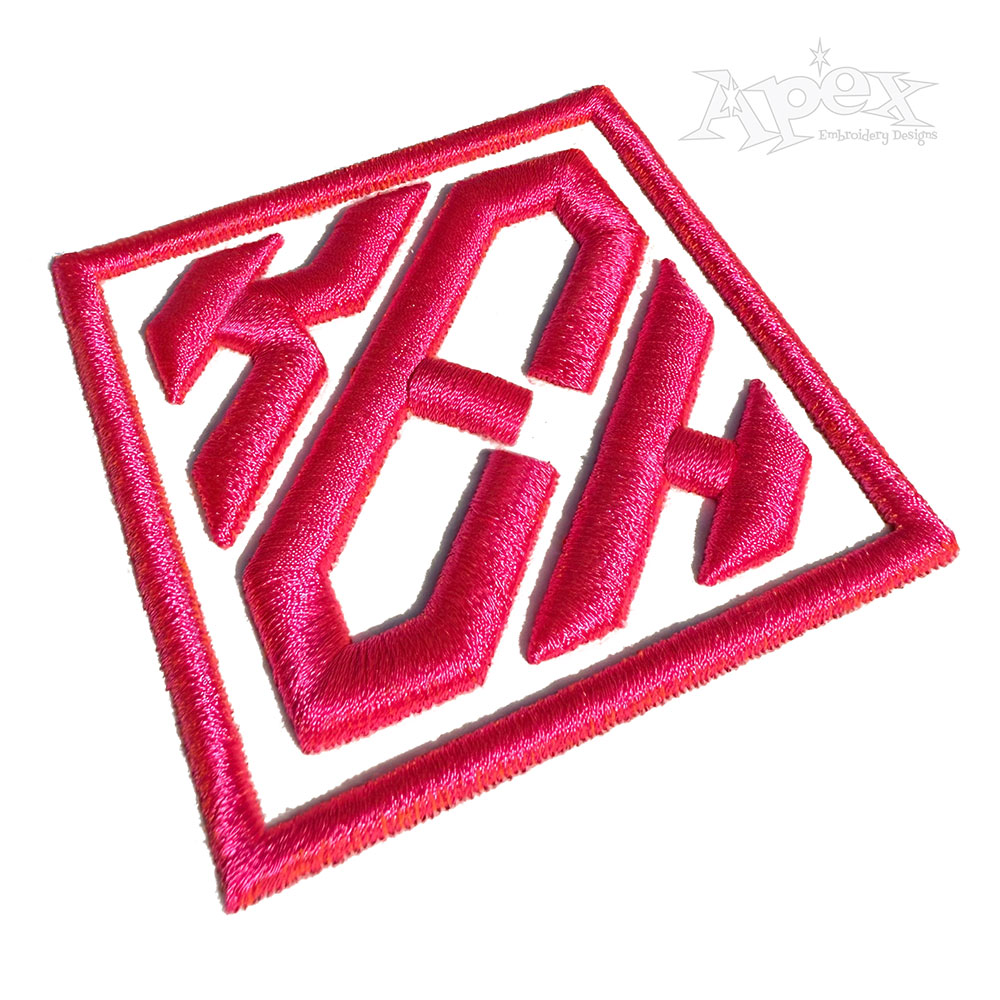
Puff 3D Diamond Embroidery Font
There is an undeniable, architectural satisfaction in running your fingers across true dimensional embroidery. The Puff 3D Diamond Embroidery Font was born from a desire to combine the crisp, heritage geometry of traditional three-letter diamond monograms with the commanding, tactile impact of raised foam digitizing. Each letter rises dramatically from the base fabric, capturing ambient light across dense, lustrous satin columns and turning a classic personalized insignia into a bold, sculptural statement piece.
Project Ideas for Puff 3D Diamond Embroidery Font
The raised, athletic luxury of this typography lends itself beautifully to durable, high-visibility textiles and structured heirloom pieces:
- Structured Performance & Streetwear Caps: Create authentic pro-grade headwear with initials that sit proudly off the front crown.
- Heavy Canvas Duffles & Boat Totes: Give rugged weekender luggage and sailing totes a bespoke, high-end resort finish.
- Collegiate Fleece & Outerwear: Stitch bold collegiate monograms on the center chest of heavyweight crewnecks, quarter-zips, and varsity jackets.
- Golf Bags & Sporting Accessories: Elevate club headcovers, shoe bags, and personalized cart towels with durable, tactile lettering.
- Tailored Workwear & Utility Jackets: Add a personalized, industrial-luxe signature above chest pockets or across back yokes.
Dimensional foam embroidery commands attention, making intentional placement essential to the overall harmony of the finished piece:
- Structured Cap Front: Position the unified diamond monogram dead-center across the front seam, aligning the highest peak of the middle letter to anchor the cap's profile.
- Center Chest Placement: For sweatshirts and outerwear, position the top vertex of the diamond frame approximately 3.5 to 4 inches below the bottom edge of the collar band.
- Tote Bag Center Pocket: Float the monogram centrally on the exterior pocket panel to balance utility with customized sophistication.
- Left Chest Alignment: Center the 2-inch configuration on the left chest line, positioned midway between the center placket and the armhole seam for an upscale athletic vibe.
Puff 3D Diamond Embroidery Font Craft & Letterform Details
Digitizing for three-dimensional foam embroidery is an uncompromising art of physics, tension, and angle control. Traditional flat satin stitches simply will not cut it; standard settings crush the foam, leaving ragged edges and exposed filler. In this font, every column has been engineered with calibrated high-density satin paths and specialized cut-capping. The stroke terminations feature micro-engineered underlay borders designed to cleanly perforate and shear the embroidery foam along the perimeter, ensuring crisp, immaculate edges that release smoothly without manual trimming.
Aesthetically, the diamond composition honors traditional proportions. The flanking left and right characters angle gracefully inward at precise complementary pitches, framing a commanding, symmetrically balanced center initial. When married with the coordinating faceted outer frame, the letters form a seamless, self-contained jewel of raised threadwork that redefines modern monogramming.